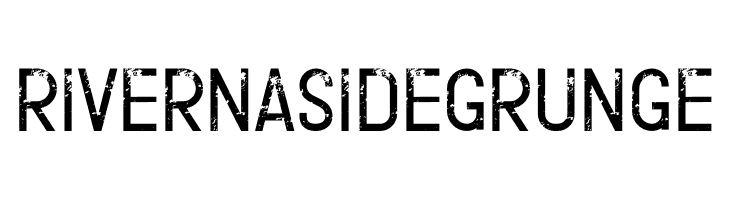
A bold, distressed font with a grunge texture and high contrast.
A bold, hand-drawn font with a rugged and impactful design.
A bold, distressed font with a vintage, rugged appearance.
A bold, textured font with a vintage, distressed style.